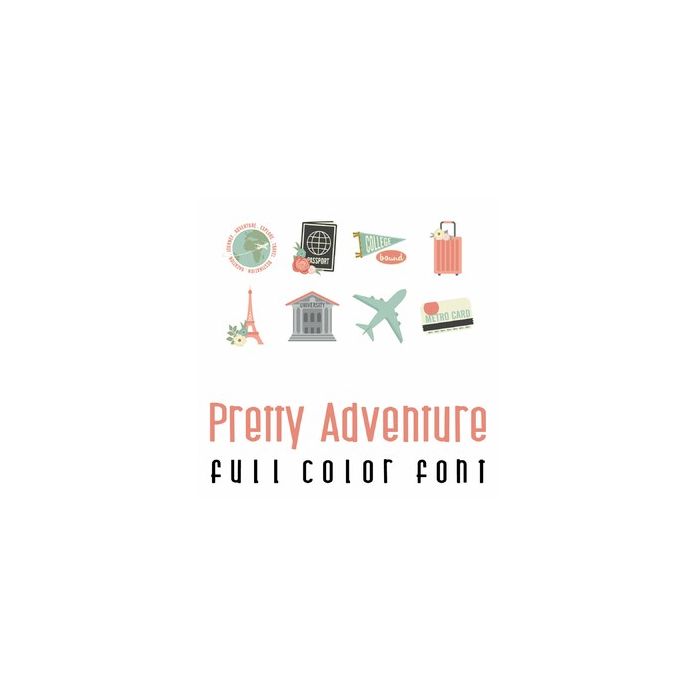
This doodlebat font features 26 femine travel and college images and is perfect for your graduate and his or hers next adventure! Use it to create cards, crafts, gifts, parties, planner stickers, scrapbook pages and more!